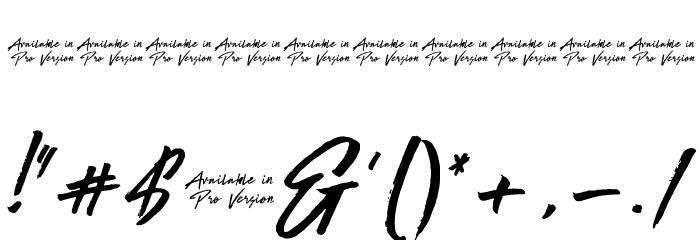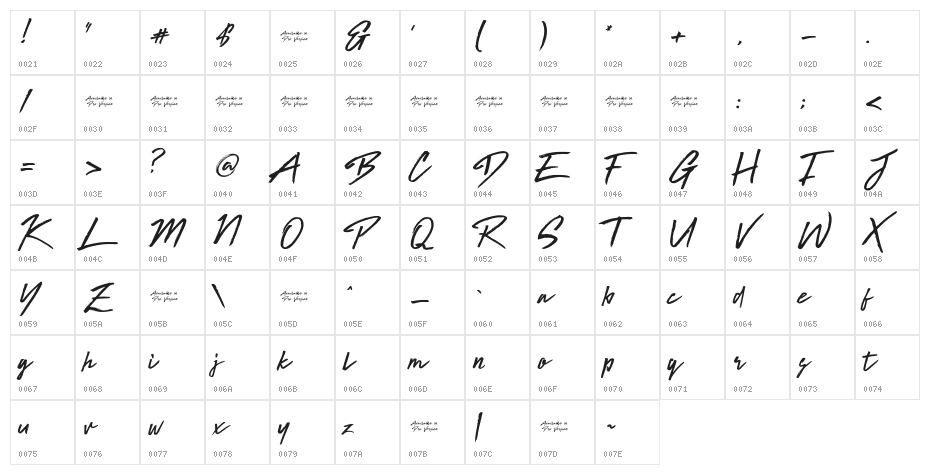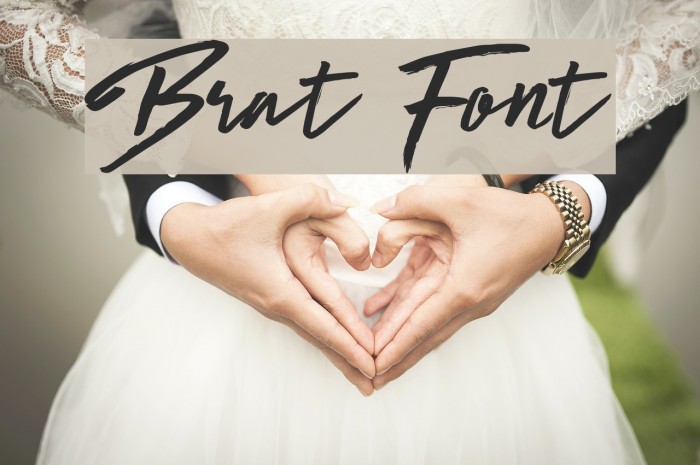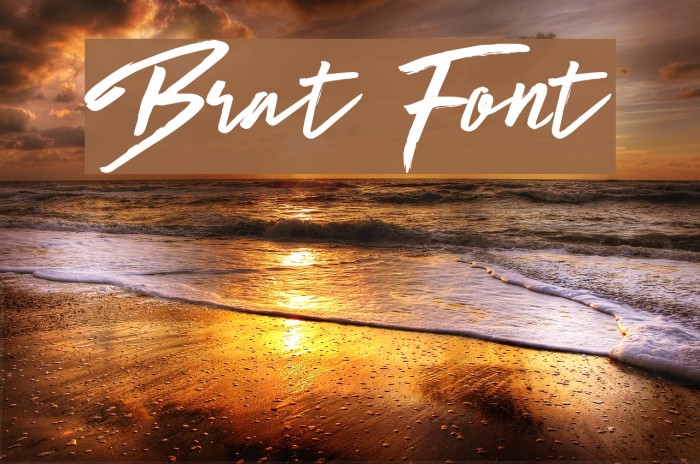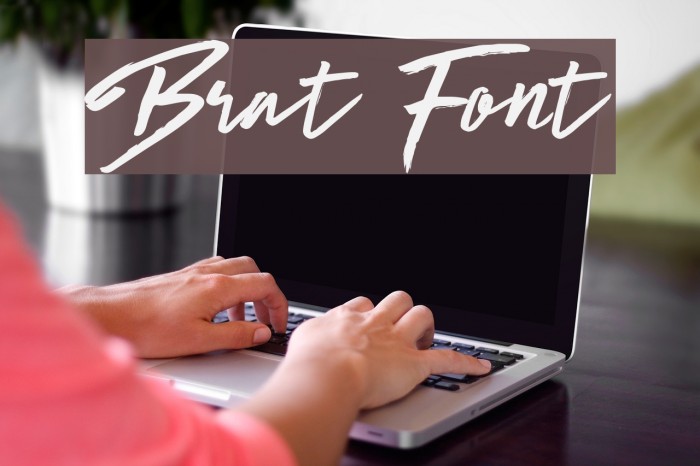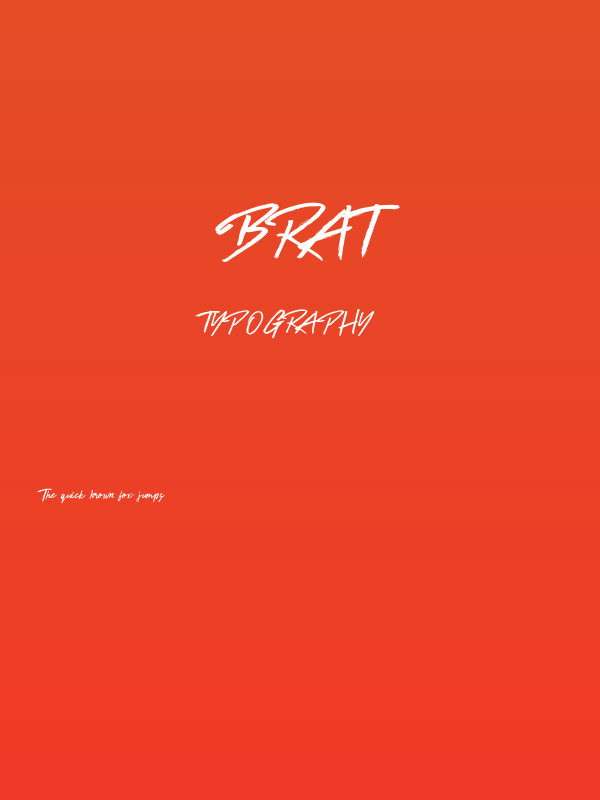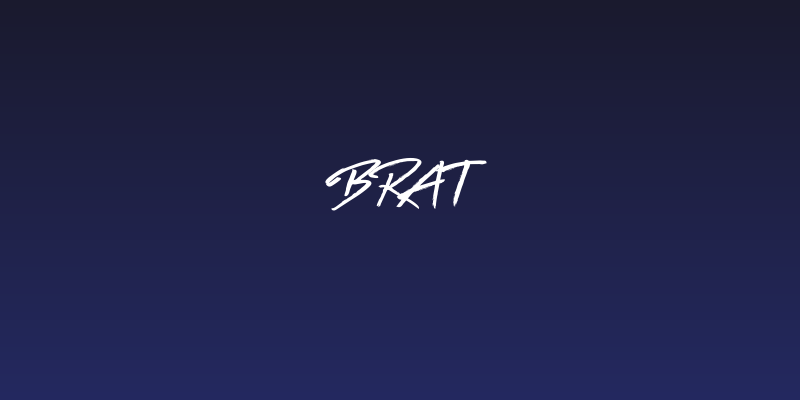
Brat Font
Brat Description
This font features a dynamic and expressive handwritten style, characterized by its fluid and energetic strokes. The uppercase letters exhibit a bold and confident presence, while the lowercase letters maintain a consistent flow, enhancing readability. The characters are slightly slanted, adding a sense of motion and spontaneity. The font includes a full set of uppercase and lowercase letters, numbers, and a variety of special characters, making it versatile for various design needs. Its brush-like texture gives it a natural and artistic feel, suitable for creative projects.
Overall StyleModern, Artistic
Use CaseLogos, Headlines, Invitations
Proposed ProjectsIdeal for branding, logo design, invitations, and artistic projects that require a personal touch.